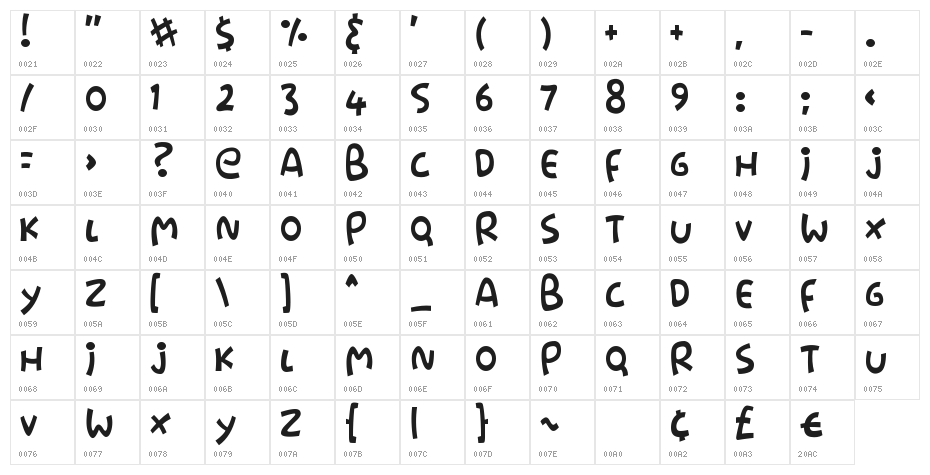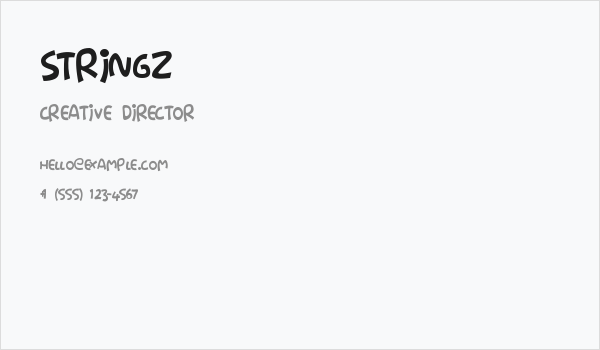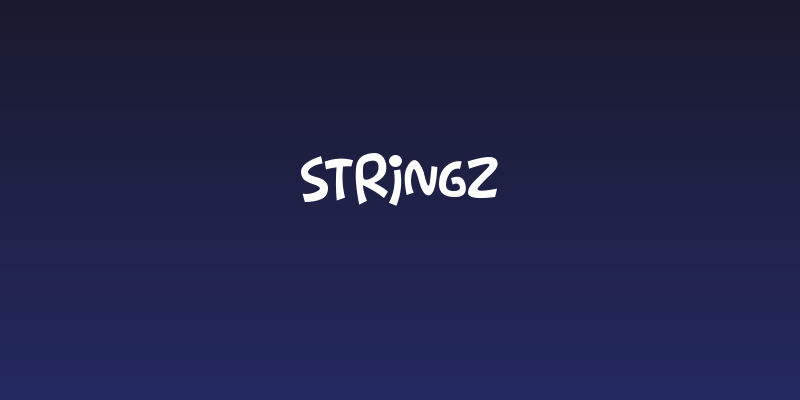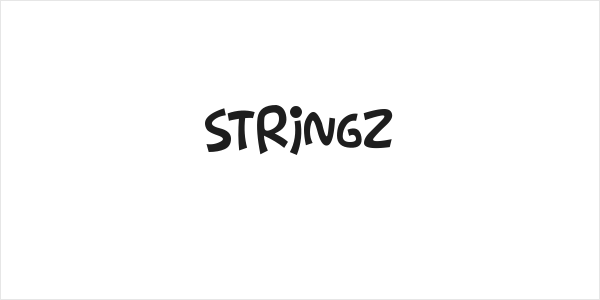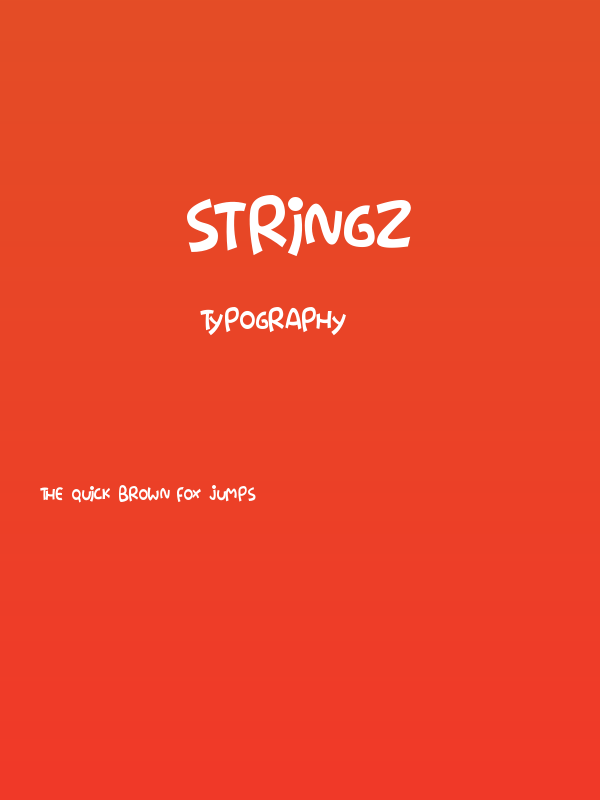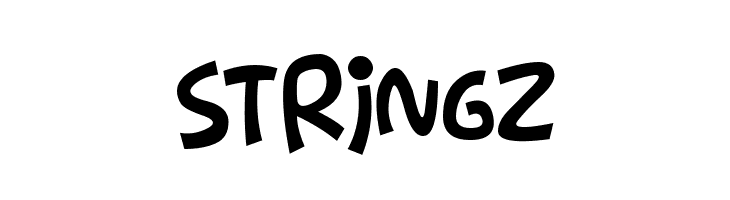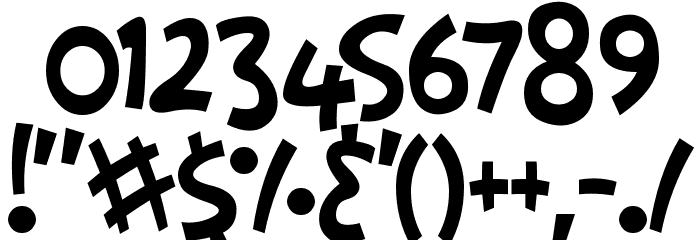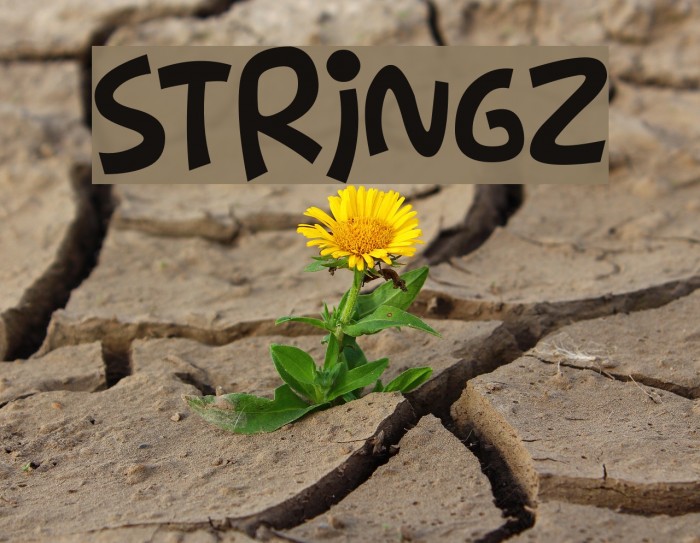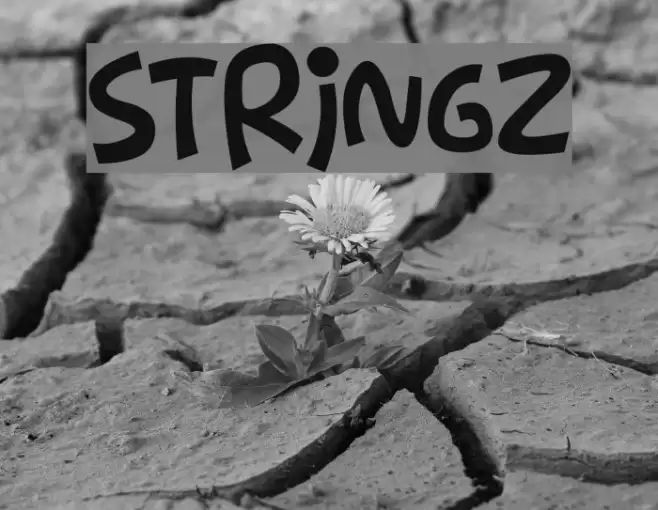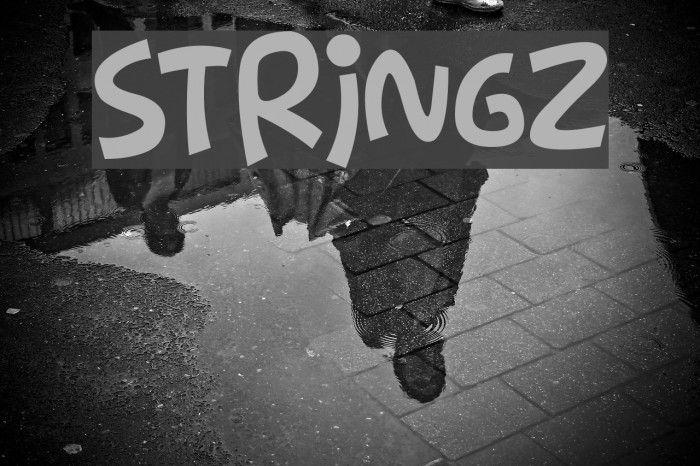
Stringz Font
Stringz Description
This playful and energetic font features a whimsical, hand-drawn style with a bold and slightly irregular appearance. The characters are rounded and have a lively bounce, giving them a sense of movement and fun. The uppercase and lowercase letters maintain a consistent style, with the uppercase being slightly larger and more pronounced. Numbers and special characters follow the same playful aesthetic, making the font versatile for creative projects. The overall look is informal and friendly, perfect for designs that require a touch of humor and personality.
| Proposed Projects | Ideal for children's books, comic strips, playful branding, and party invitations. |